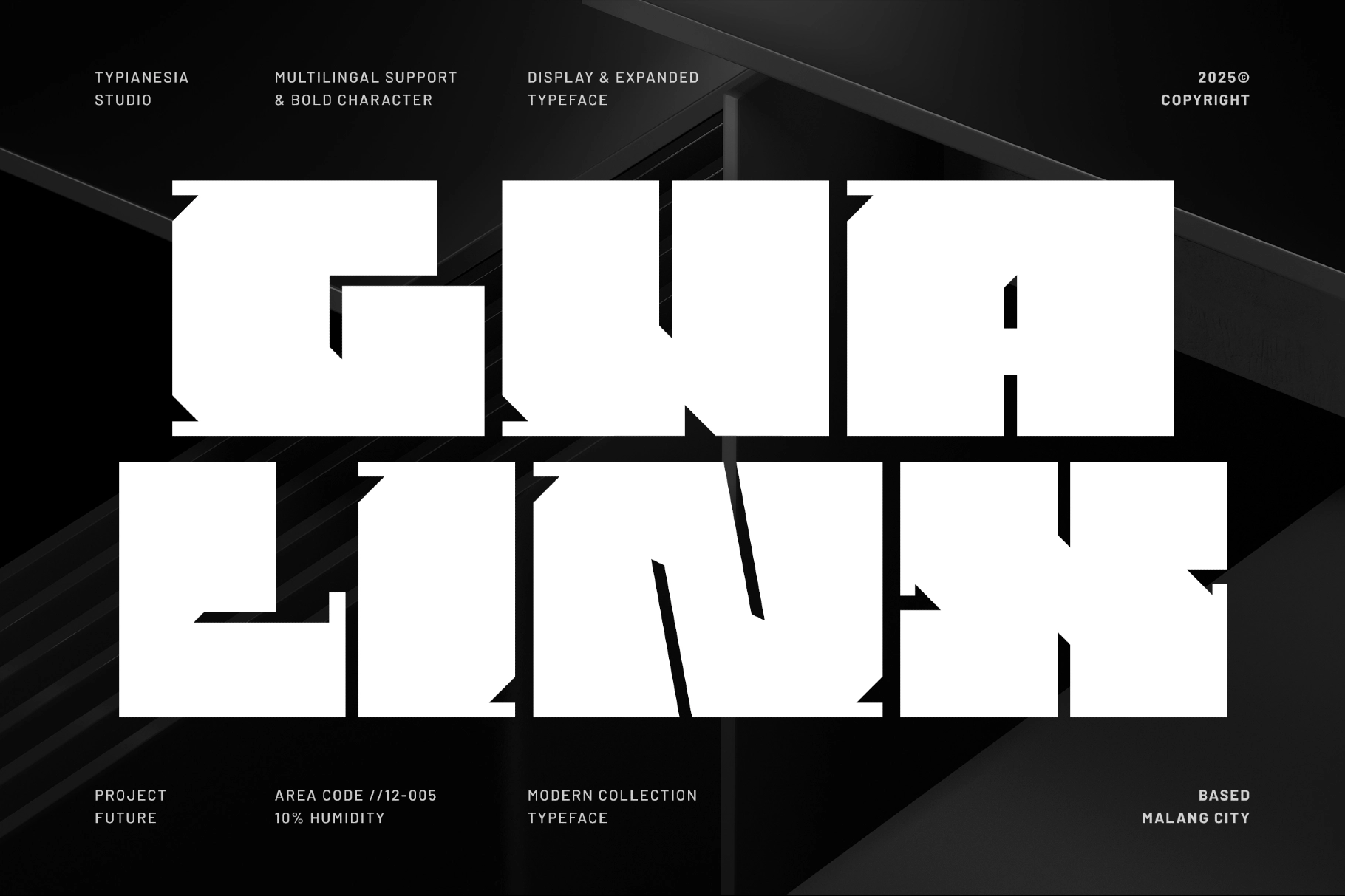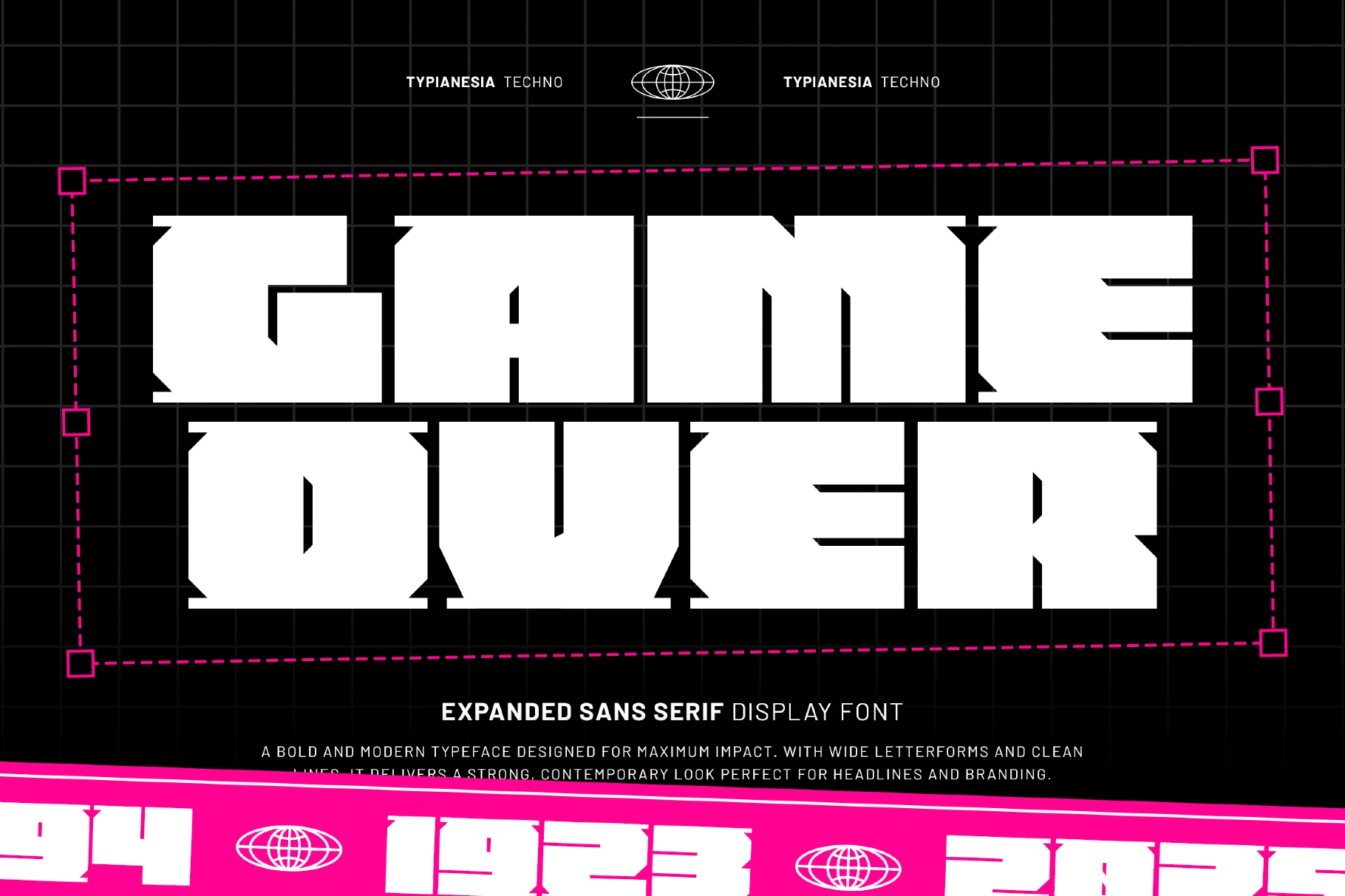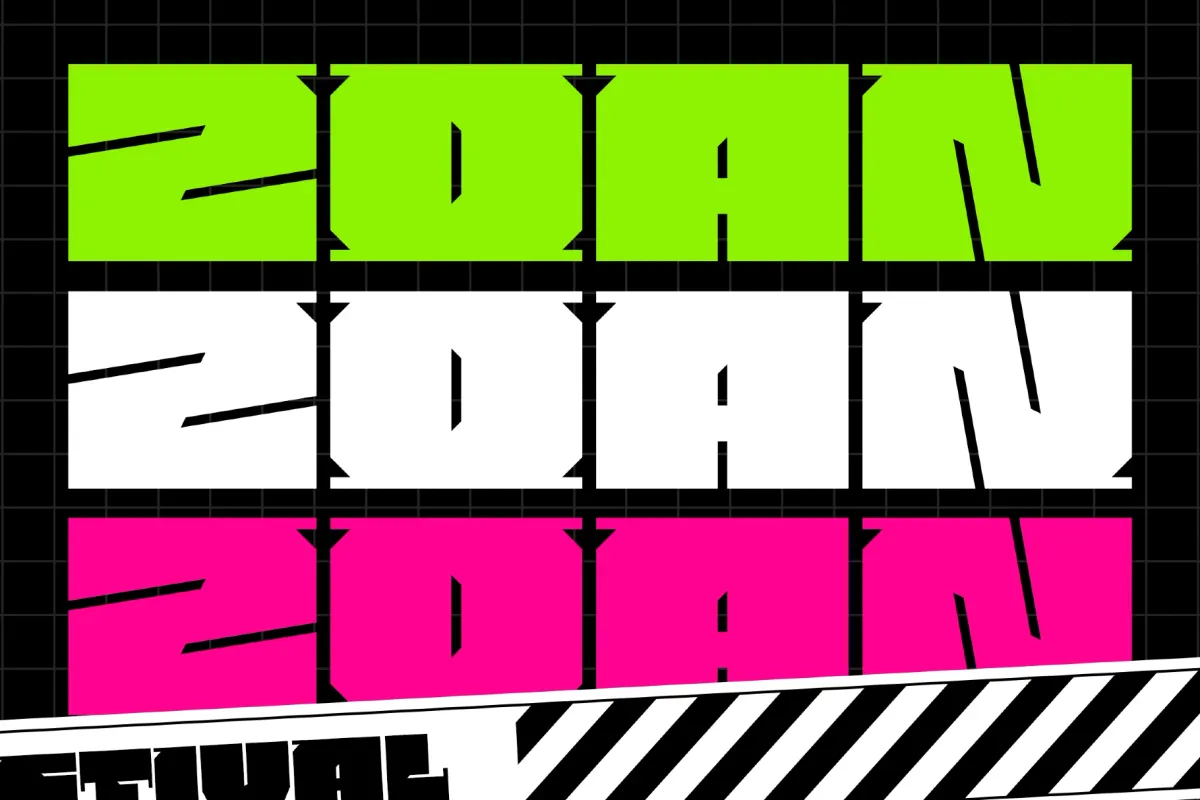
Gualinx - Expanded Techno Display Font
Gualinx
Gualinx – Expanded Techno Display Font is a modern expanded sans serif typeface designed for strong visual impact. With its bold geometric structure, wide proportions, and sharp ink trap details, it delivers a powerful and contemporary look that instantly draws attention. The expanded letterforms create a confident typographic presence while maintaining clarity and readability.
Perfect for headlines, logos, posters, branding, gaming visuals, sports graphics, and advertising campaigns, Gualinx brings a futuristic and energetic character to any design project across both print and digital media.
- Bold Expanded Sans Serif Display Style
- Geometric Letterforms with Dynamic Ink Trap Details
- Perfect for Headlines, Logos, Posters & Branding
- Ideal for Sports, Gaming, Urban, and Tech Designs